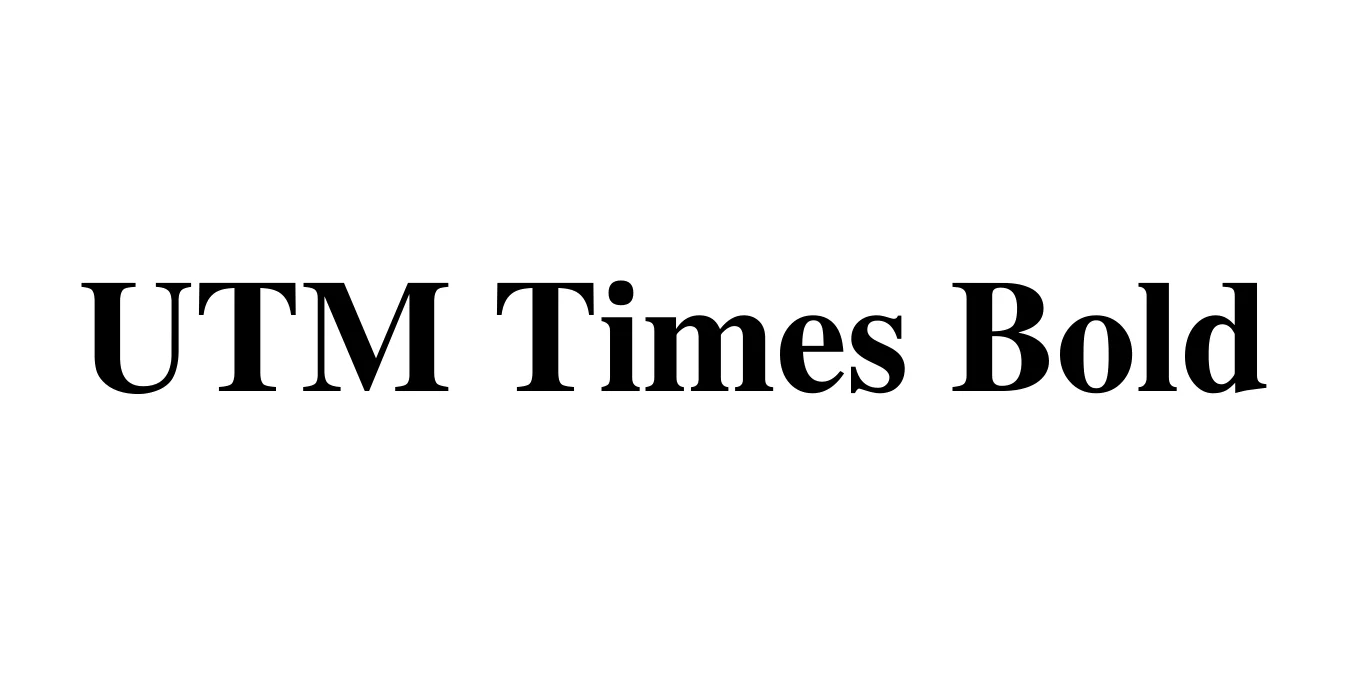
UTM Times Bold
Designed by Stanley Morison & Victor Lardent (Adapted by UTM)
UTM Times Bold is a specialized Unicode-compliant version of the iconic Times New Roman typeface, specifically localized for the Vietnamese language. Originating from the UTM (Unicode Typeface Management) collection, this font retains the authoritative and timeless qualities of its predecessor while ensuring perfect diacritic placement for Vietnamese characters. It remains a staple in regional graphic design, offering a familiar yet technically optimized experience for high-resolution printing and digital typography.
The design features strong, bracketed serifs and high stroke contrast, making it exceptionally legible for long-form content and headlines alike. Because it adheres to modern encoding standards, UTM Times Bold is widely used for official documentation, academic papers, and traditional publishing. Its classic aesthetic provides a sense of formality and reliability, making it an essential tool for designers who require a robust serif typeface with comprehensive character support.
UTM Times Bold Best Uses
Perfect for newspapers, magazines, and long-form journal articles.
Ideal for formal reports, theses, and educational documents requiring a professional look.
Suitable for official letterheads, business cards, and legal contracts.
Effective for clear, readable body text and authoritative headings on informational websites.